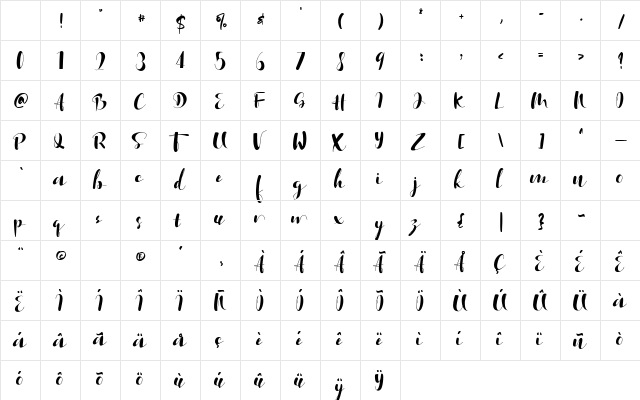
Acmedia is a composed and adaptable typeface that performs quietly and consistently across a wide range of design contexts.
Pro Tip: Use Acmedia in both headline and body roles to test its range before committing to a single application.